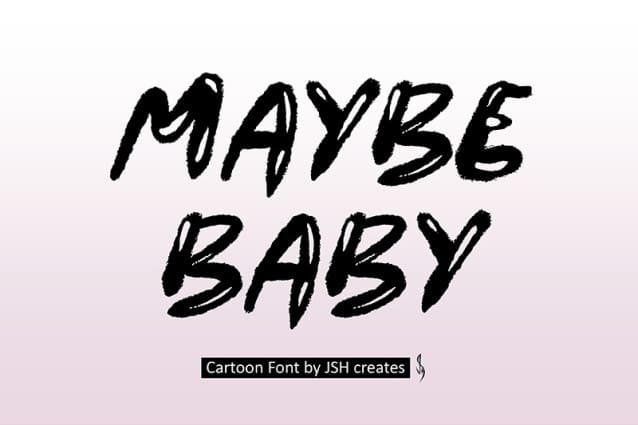
Maybe Baby Font
Maybe Baby Font, cool cartoon font. Perfect for advertising and display purposes, including banners, book covers, shirts, posters, logos and much more!